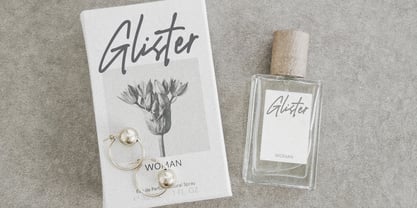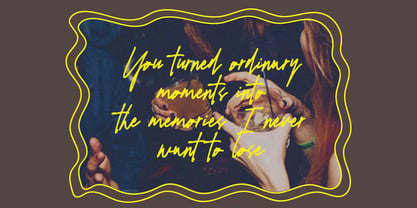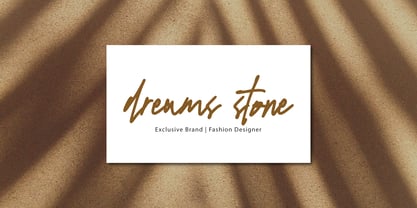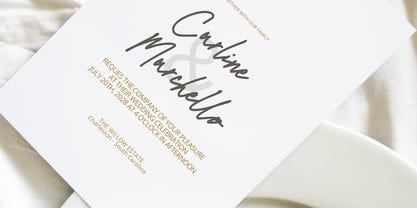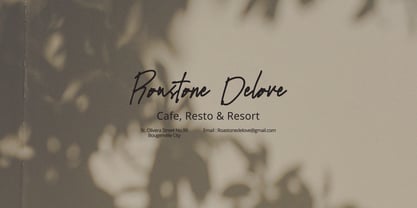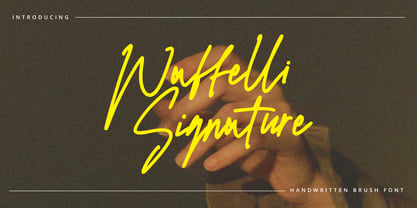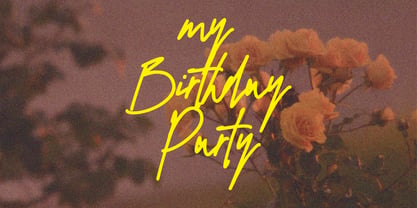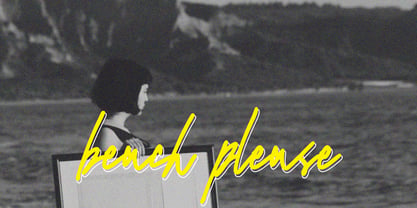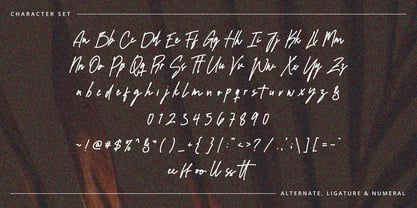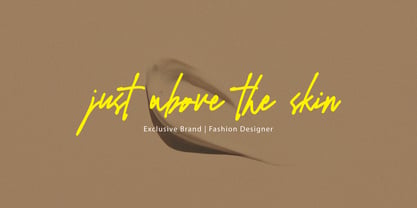
Waffelli Signature
by Tebaltipis Studio
The Waffelli Signature Font Family was designed by Dzulka Elfira and published by Tebaltipis Studio. Waffelli Signature contains 1 styles. More about this family
Waffelli Signature – Handwritten Brush Font
Elevate your design projects with Waffelli Signature, an expressive handwritten brush font crafted to bring authentic charm and effortless elegance to your work. Featuring fluid, energetic strokes and a dynamic natural flow, this typeface captures the personal touch of genuine hand lettering.
Waffelli Signature is ideal for branding, signature logos, wedding invitations, fashion layouts, quote posters, packaging, and social media graphics. Whether you need an eye-catching headline or an elegant personal logo, this font adds an artistic, modern edge.
Waffelli Signature Features :
Uppercase & Lowercase International Languange & Symbols Support Punctuation & Number PUA Unicode Range Standard Ligatures Discretionary Ligatures Stylistic Alternates Stylistic Set.
Designers: Dzulka Elfira
Foundry: Tebaltipis Studio
Waffelli Signature